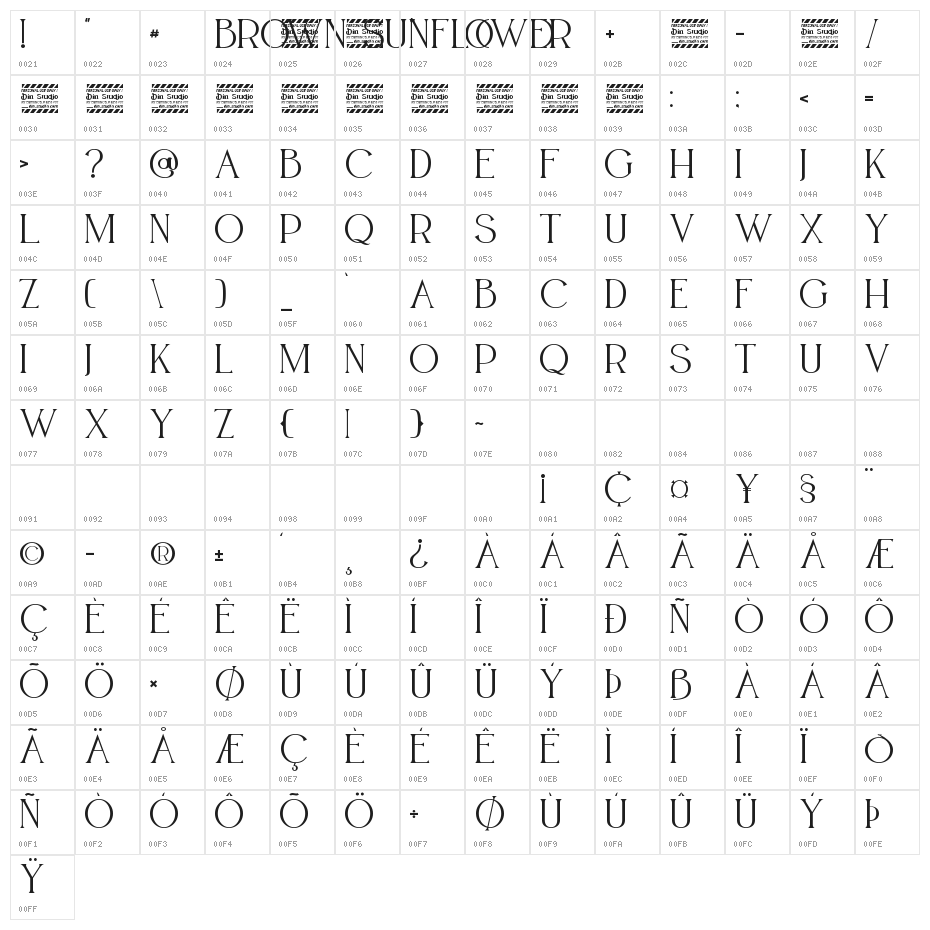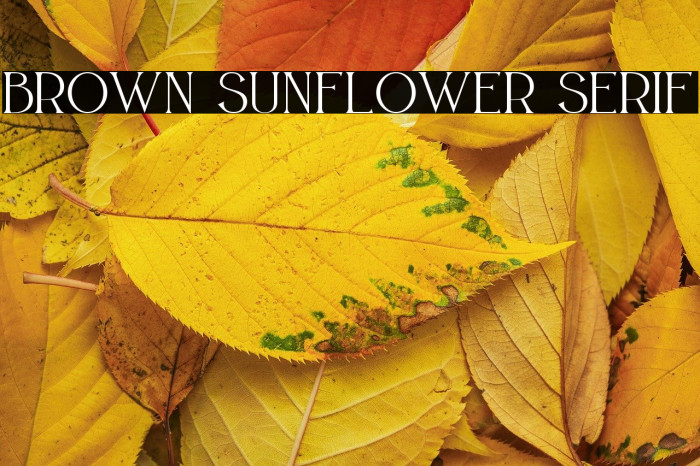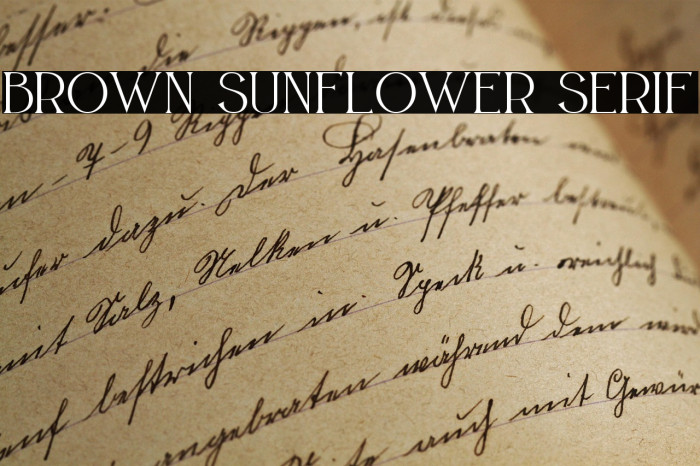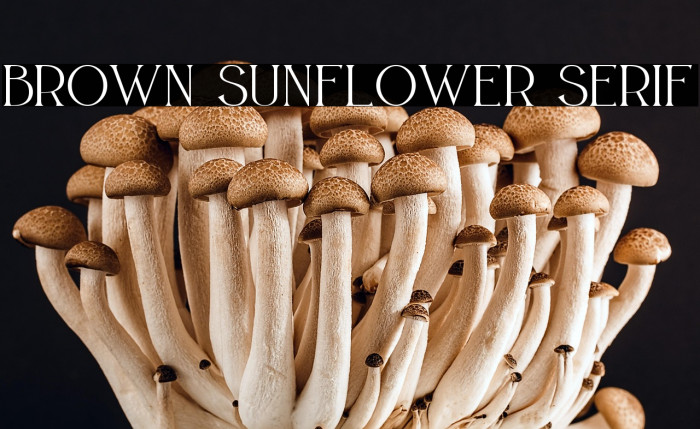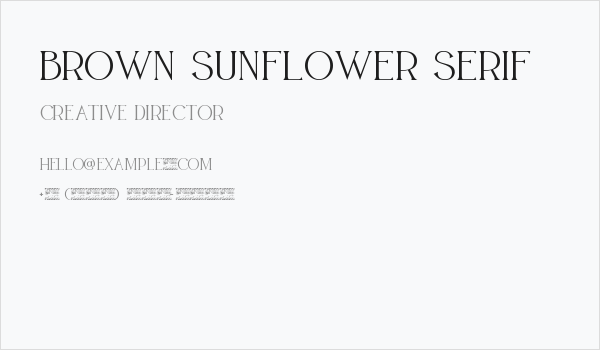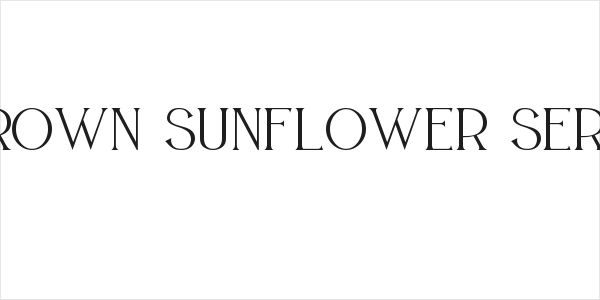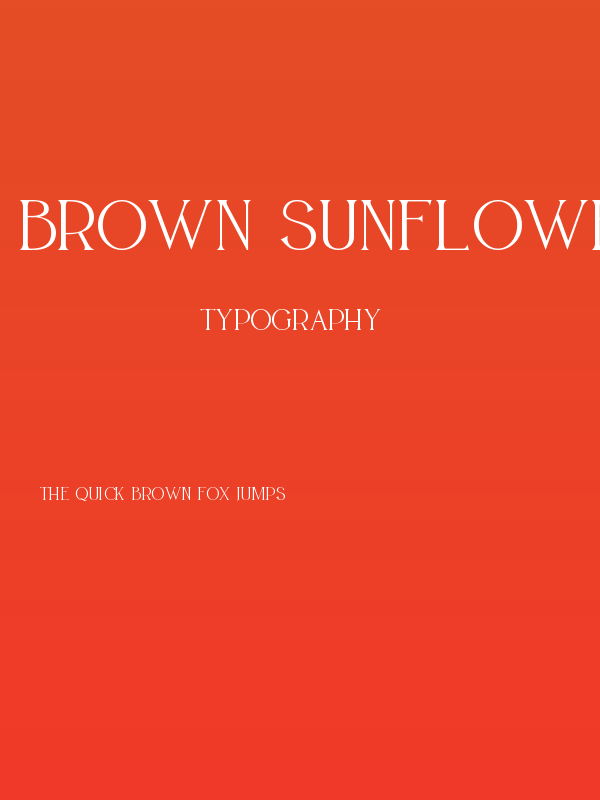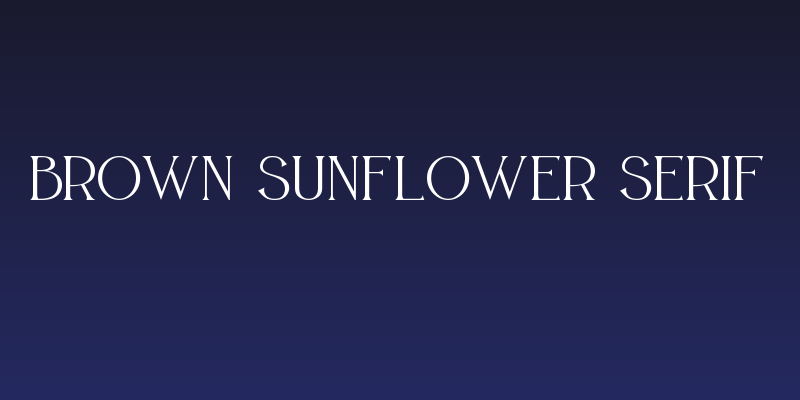
BROWN SUNFLOWER SERIF Font
BROWN SUNFLOWER SERIF Description
This serif typeface exudes elegance with its tall, slender letterforms and subtle curves. The strokes are refined, with a moderate contrast between thick and thin lines, giving it a sophisticated appearance. The serifs are sharp and pronounced, adding a touch of classic style. The uppercase letters are particularly striking, with a sense of grandeur and formality. The lowercase letters maintain a consistent style, ensuring readability and harmony. This font is versatile, suitable for both traditional and modern designs, making it ideal for a variety of applications.